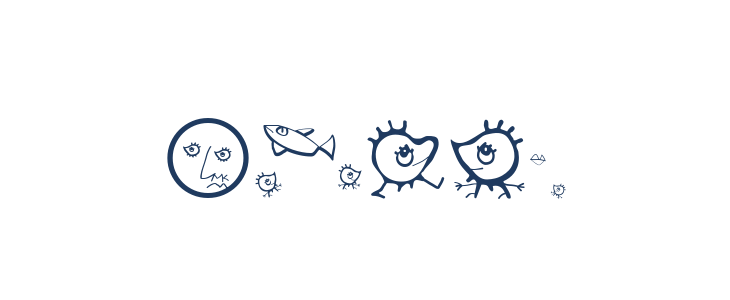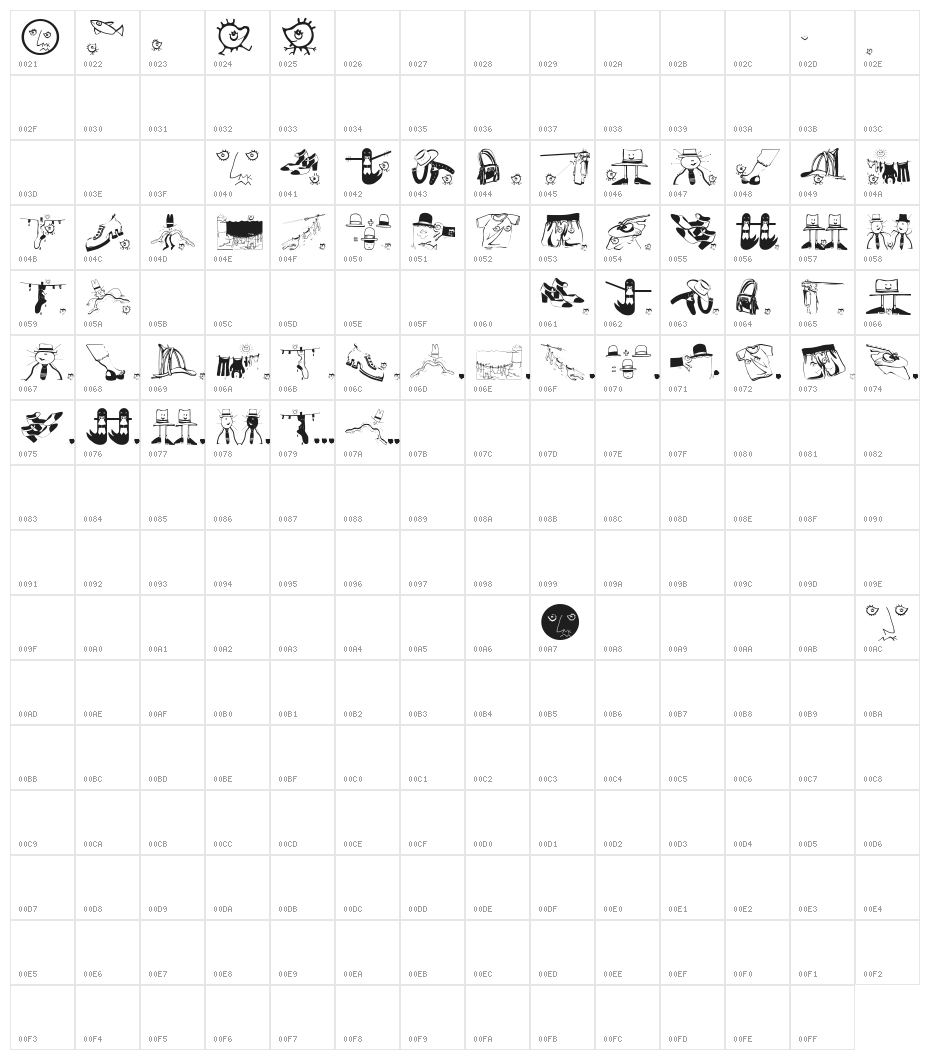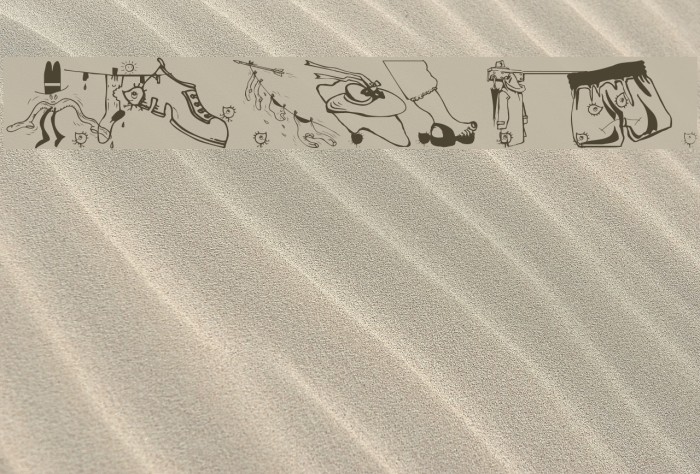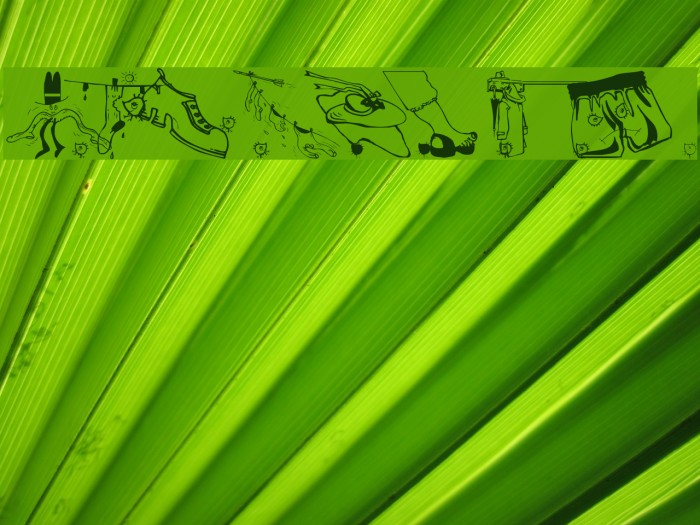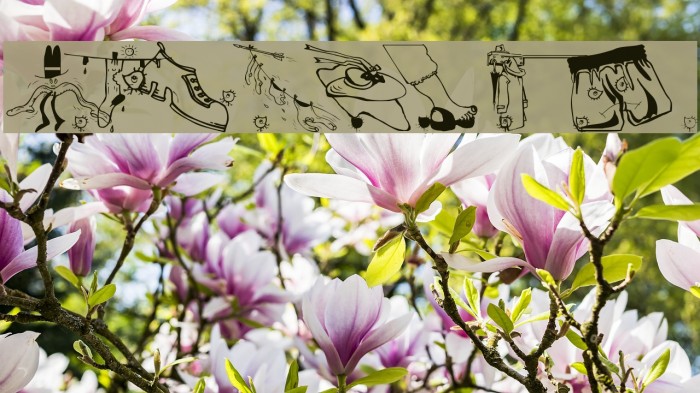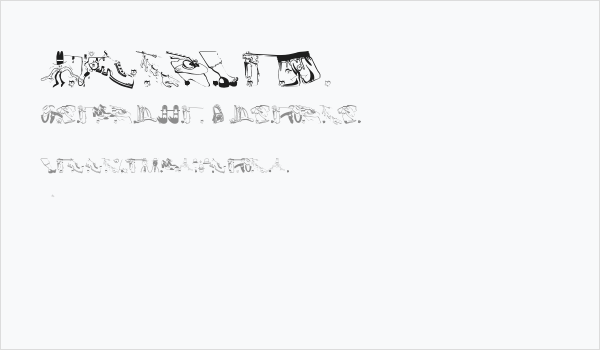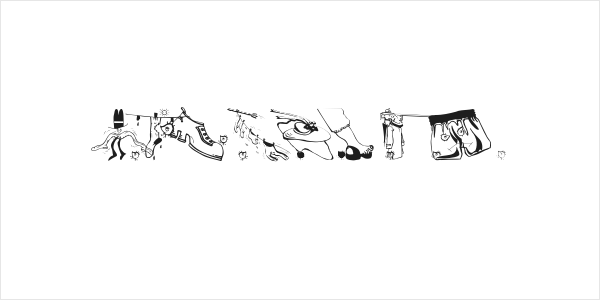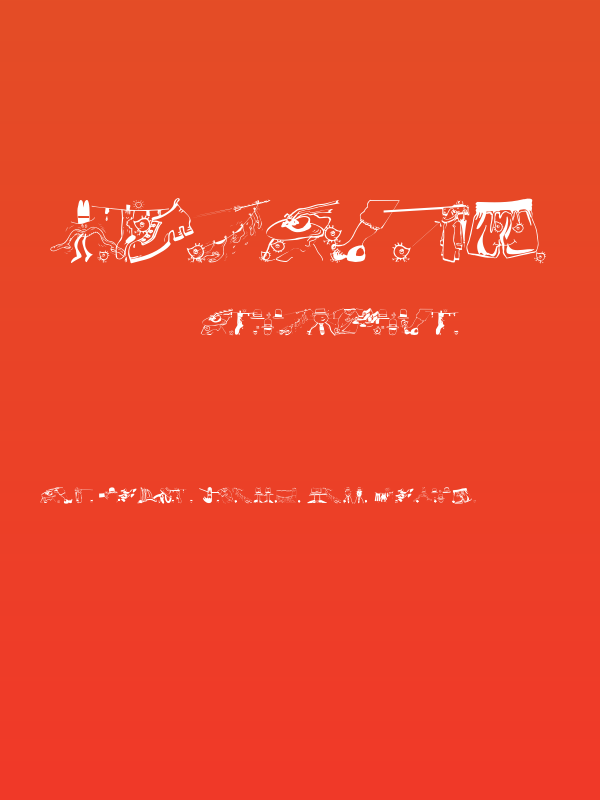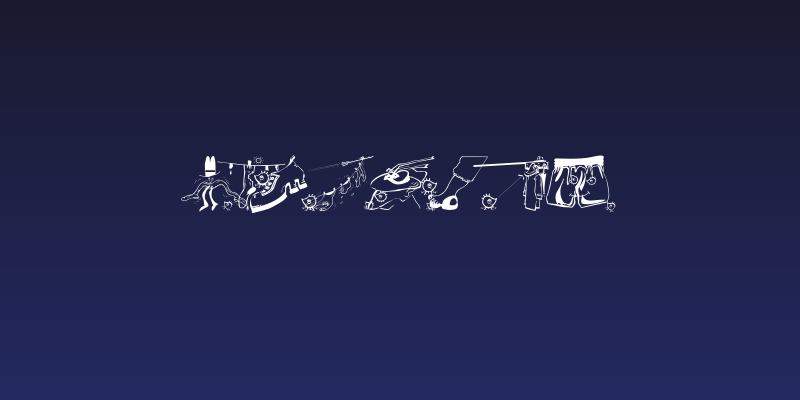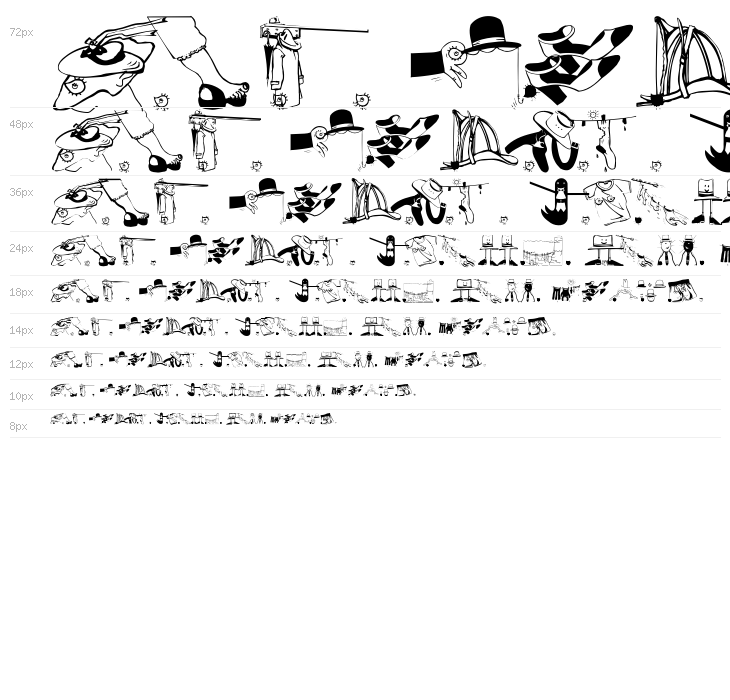
MKlothes Font
MKlothes Description
This is a whimsical and playful decorative font featuring a variety of quirky and imaginative illustrations. Each character is represented by a unique drawing, including elements like hats, shoes, and other clothing items, combined with cartoonish faces and abstract shapes. The style is highly creative and artistic, with a hand-drawn feel that adds a sense of fun and spontaneity. The font is not suitable for traditional text but serves as a delightful visual element for creative projects.
| Use Case | Logos, Artistic projects, Illustrations |
| Proposed Projects | Ideal for children's book illustrations, playful branding, creative posters, and artistic projects requiring a unique visual style. |